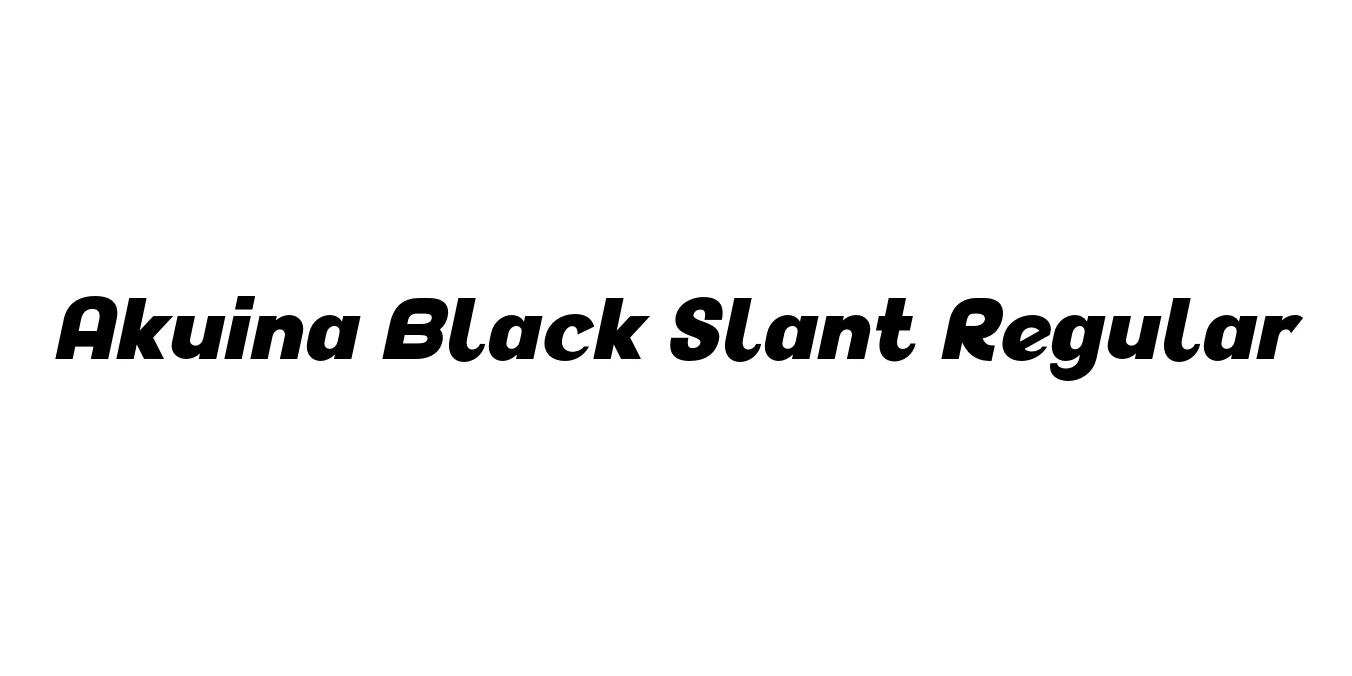
Akuina Black Slant Regular
| Font Name | Akuina Black Slant |
| Category | Display Sans Serif |
| Similar Fonts | Montserrat Black Italic, Futura Extra Bold Italic, Impact, Helvetica Black Oblique |
Akuina Black Slant Regular is a robust and modern display typeface that belongs to the larger Akuina font family. Developed by Alit Design, this font is characterized by its thick, geometric strokes and a distinctive forward slant that conveys a sense of speed, motion, and contemporary energy. The design balances heavy weight with sharp terminals, making it an ideal choice for high-impact visual communication where a strong, authoritative presence is required.
This typeface is highly versatile within the branding and sports industries, where its dynamic posture provides a professional yet aggressive aesthetic. Its geometric construction ensures that the characters remain legible even when used in large-scale formats like billboards or digital banners. Whether you are designing for a tech startup or a high-performance athletic brand, Akuina Black Slant Regular offers the versatility and boldness needed for cutting-edge graphic design.
Akuina Black Slant Regular Best Uses
Creating powerful and memorable corporate identities and logos.
Designing high-energy graphics for athletic teams and fitness apparel.
Crafting impactful headlines for billboards and promotional posters.
Using as a hero font for headers to grab user attention immediately.